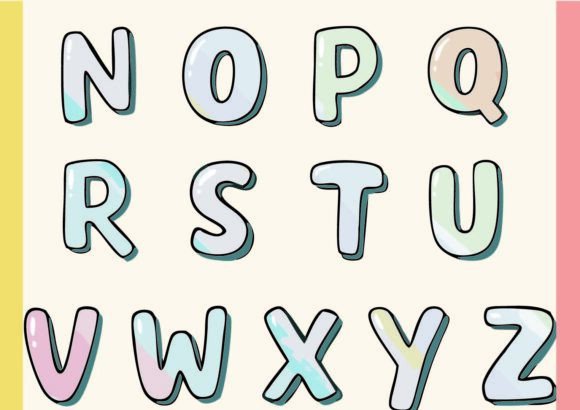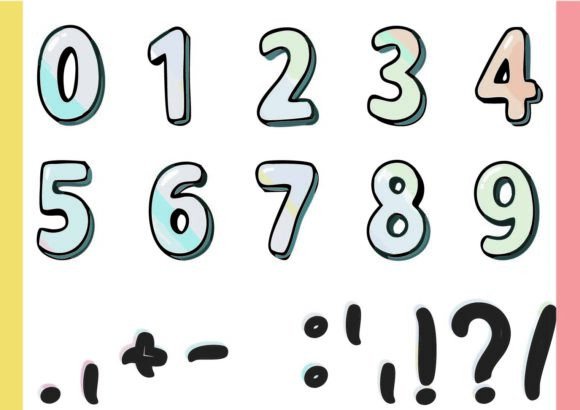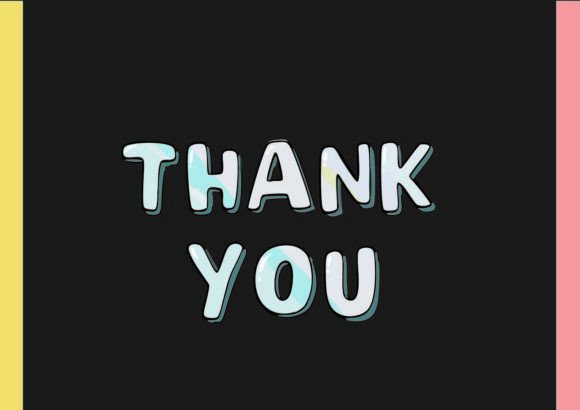
The Colorful World of Typography: Unleashing the Beauty of Hazel Font
As a designer, have you ever sat at your desk, staring at a blank canvas, trying to come up with the perfect font to bring your latest project to life? The search for the perfect typography can be a long and arduous one, but sometimes, it’s the smallest details that make all the difference. For me, it was a chance discovery of a color font that sparked a creative epiphany, and I’m excited to share it with you today.
Introducing Hazel Font, a revolutionary Opentype-SVG color font that brings a whole new level of depth and visual interest to your designs. With every single glyph boasting its own unique set of colors, Hazel Font is a typographic painter’s dream come true. Its versatility and compatibility with popular design software make it an invaluable tool for designers looking to take their work to the next level.
Hazel Font Key Features
- Font Family: Hazel Font is a sans-serif font family designed for digital use, offering a clean and modern look.
- Size: The font family includes a range of weights from Thin to Black, with each weight offering 6 styles (Regular, Italic, Bold, Bold Italic, Light, and Light Italic).
- Unique Characteristics: Hazel Font features a unique blend of geometric and organic shapes, resulting in a distinctive and recognizable design aesthetic.
Hazel Font Review
I recently had the chance to work with the Hazel font, and I’m excited to share my thoughts on it. Overall, I was quite impressed with this font’s unique character and versatility.
- ✨ Elegant and sophisticated look: Hazel font has a classic feel to it, making it perfect for any project that requires a touch of sophistication.
- ✨ Excellent legibility: This font is easy to read, even at smaller font sizes, which is a must-have for any good font.
- ✨ Versatility: Hazel font comes in a range of weights and styles, making it suitable for various design applications.
- ⚠️ Limited typographic range: While Hazel font has a solid selection of weights and styles, it falls short in terms of typographic range, which might limit its use in certain projects.
- ⚠️ Not ideal for bold headings: While Hazel font has a range of weights, it’s not the best choice for bold headings, as it can become too dense and lose its elegance.
Overall, Hazel font is a great addition to any designer’s toolkit. While it has some limitations, its unique character and versatility make it a solid choice for various design projects. If you’re looking for a sophisticated font with excellent legibility, Hazel is definitely worth considering.
Hazel Font is a versatile font that can be used in a variety of design projects, including:
1. Branding and logos.
2. Marketing materials such as brochures and flyers.
3. Social media graphics and ads.
4. Web design and development.
For best results, use Hazel Font in conjunction with other modern fonts to create a clean and professional look.
Alternatives to Hazel Font for Designers
Lato is a modern sans-serif font that is highly legible and versatile. It is suitable for both body text and headings, making it a great choice for web design and digital products. Compared to Hazel Font, Lato has a more neutral tone and a slightly more geometric feel.
Montserrat is a sans-serif font that is inspired by the urban landscape of Buenos Aires. It is highly legible and has a strong, modern feel that makes it perfect for digital products, apps, and websites. Compared to Hazel Font, Montserrat has a more aggressive, geometric feel.
Open Sans is a clean and modern sans-serif font that is highly legible and versatile. It is suitable for both body text and headings, making it a great choice for web design, digital products, and print materials. Compared to Hazel Font, Open Sans has a more neutral tone and a slightly more rounded feel.